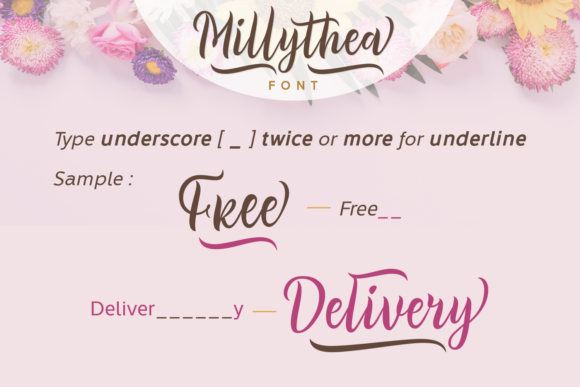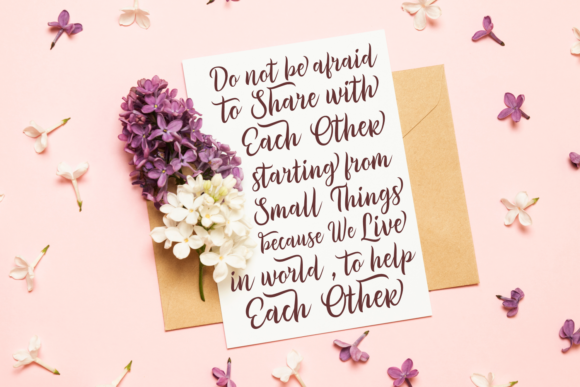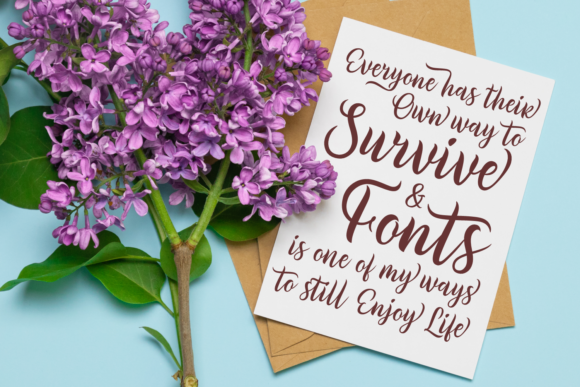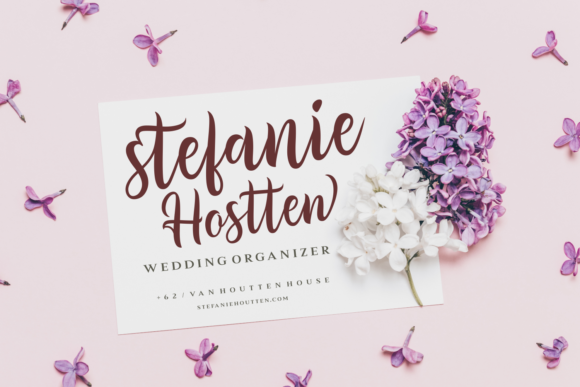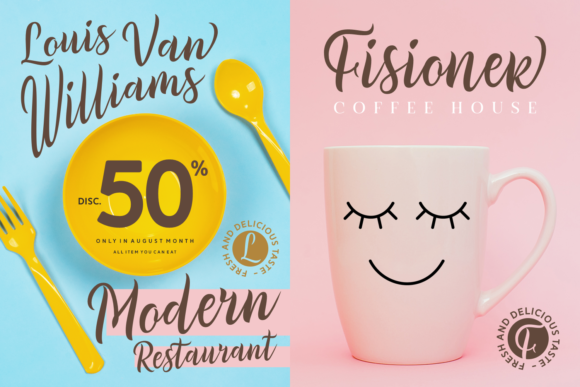
Introduction to Millythea Font
Millythea is an elegant and cute handwritten font with a whimsical feel.
It will turn any design project into a piece of art .
Key Features of Millythea Font
Why Choose Millythea Font?
Millythea Font offers exceptional quality and versatility, making it a valuable addition to your design toolkit. Whether you’re creating for personal projects or commercial use, Millythea Font delivers professional results.